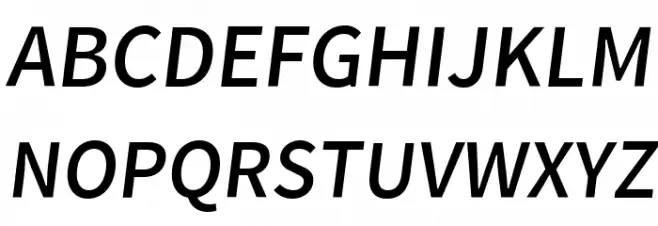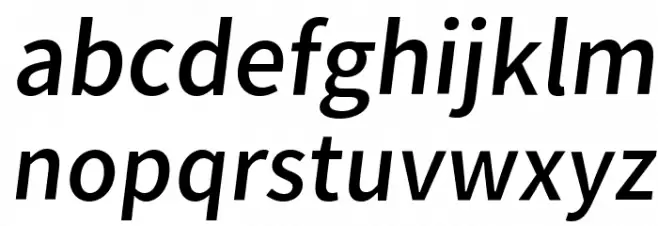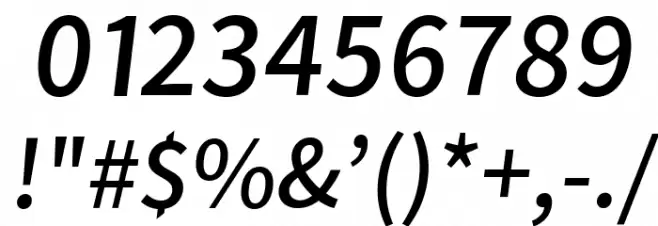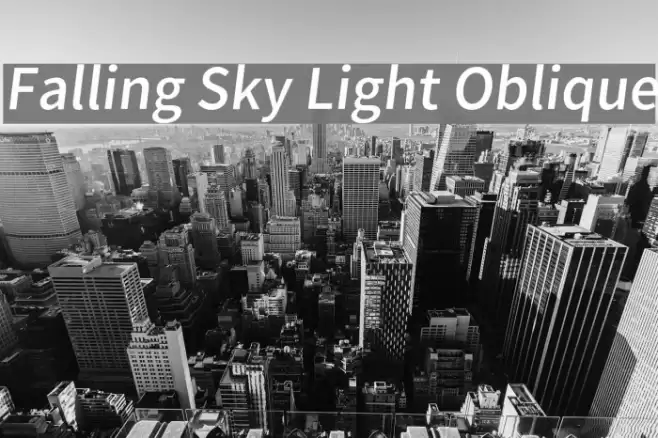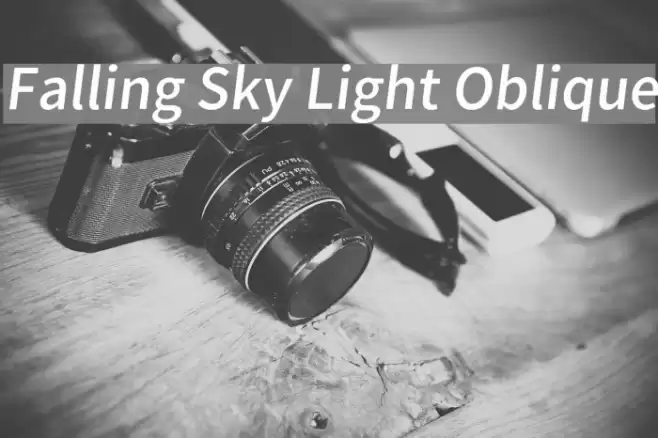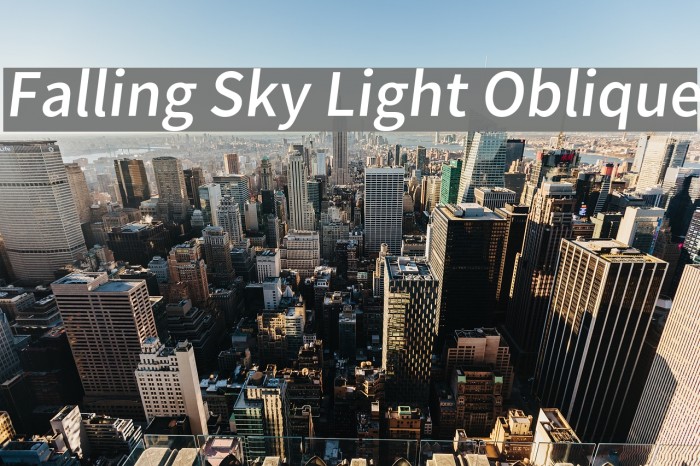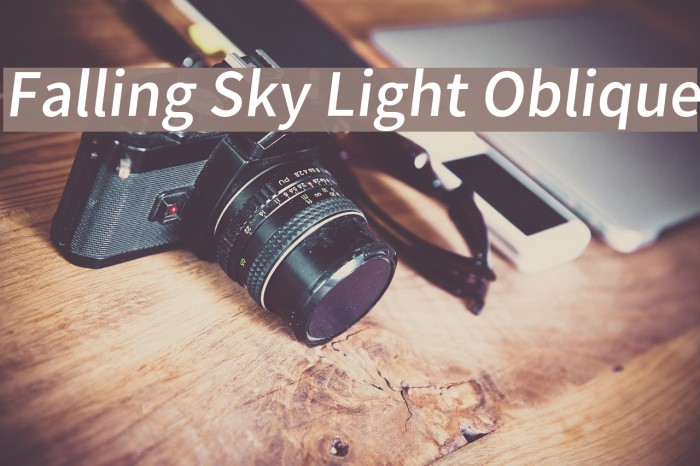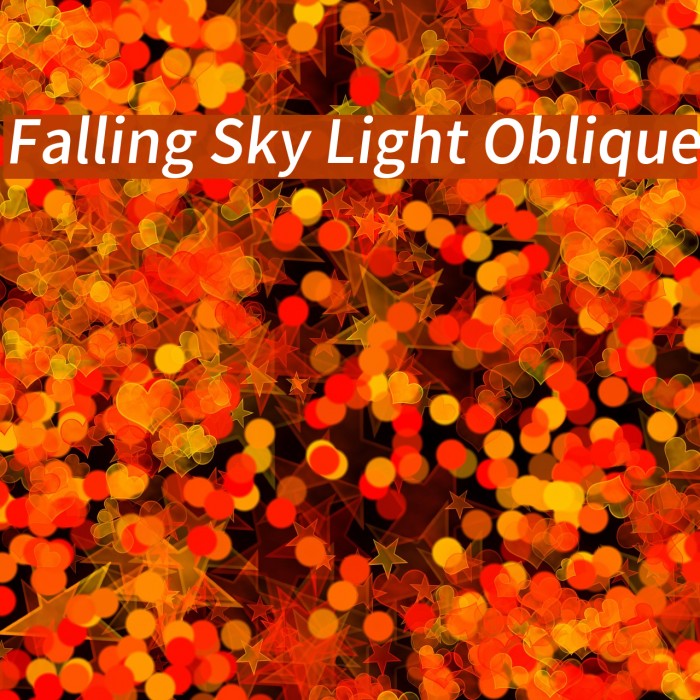
Falling Sky Light Oblique
This font features a clean and modern sans-serif style with a slight oblique angle, giving it a dynamic and forward-moving appearance. The characters are evenly spaced, providing a balanced and readable text flow. The strokes are consistent in weight, contributing to a uniform and sleek look. The font's simplicity and clarity make it versatile for various design applications. It maintains a professional tone while adding a touch of elegance through its subtle slant.
A modern, oblique sans-serif font with clean lines and balanced spacing.
- Proposed Projects: Ideal for branding, advertising, web design, and editorial layouts where a modern and professional appearance is desired.